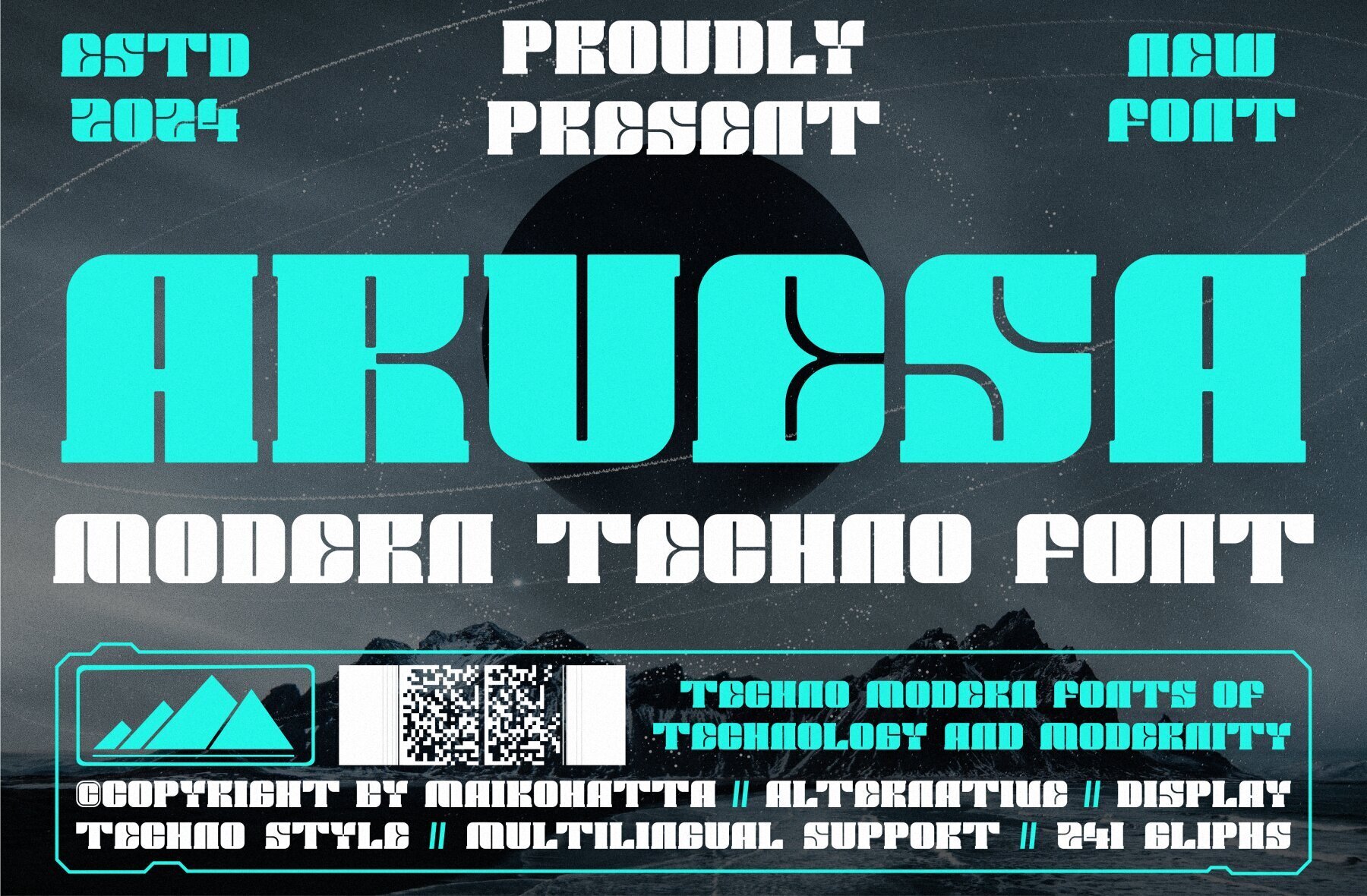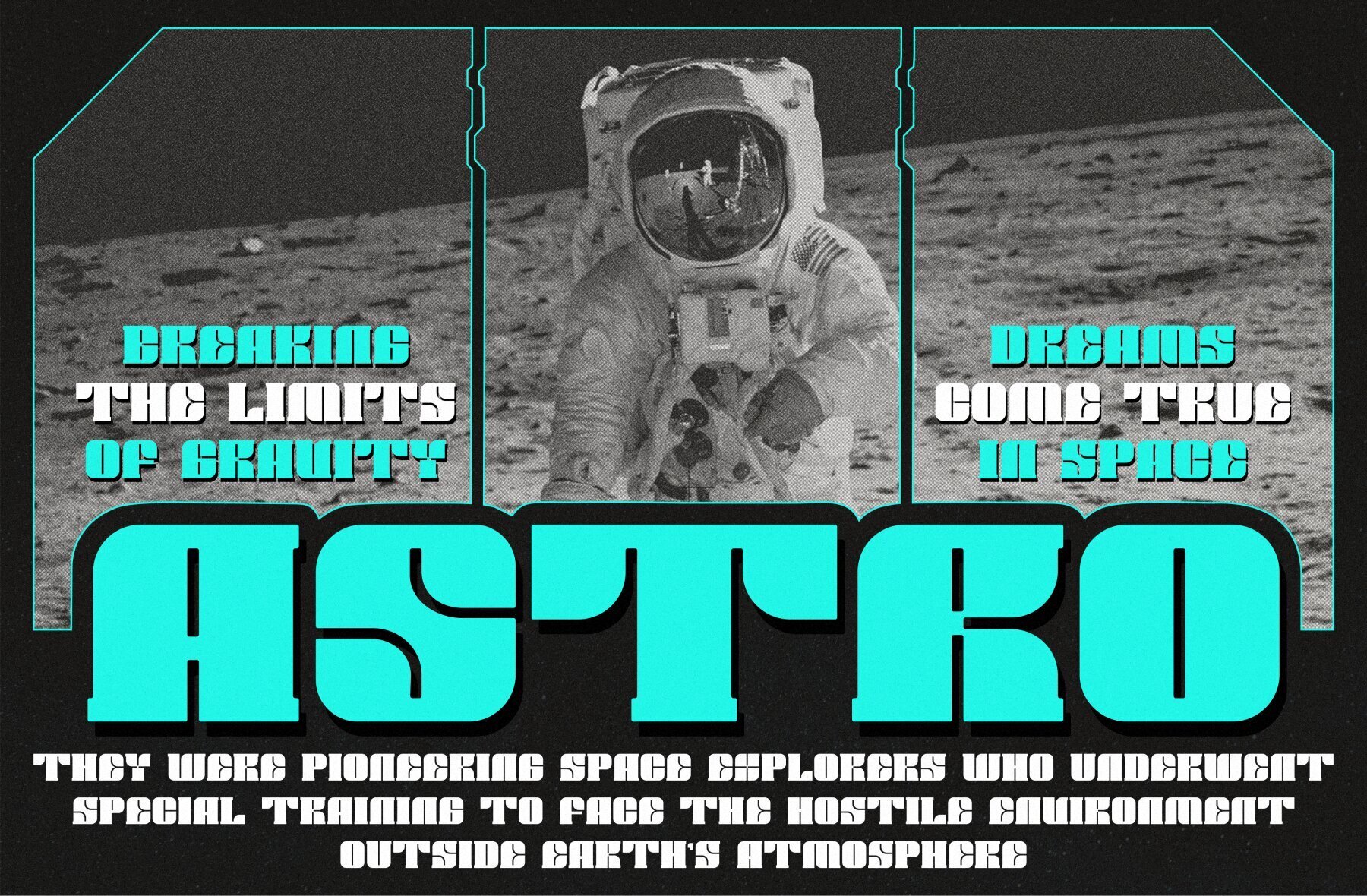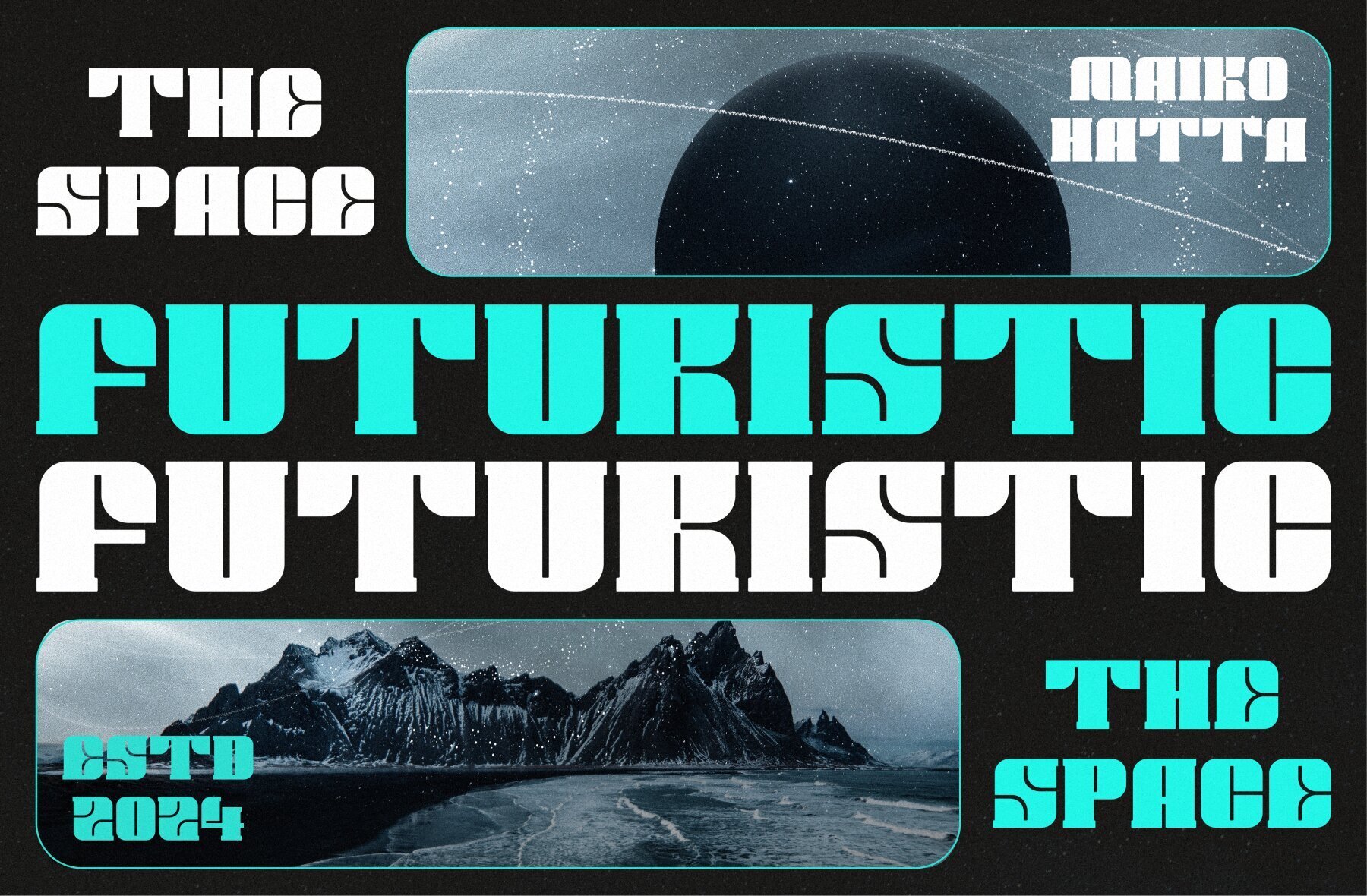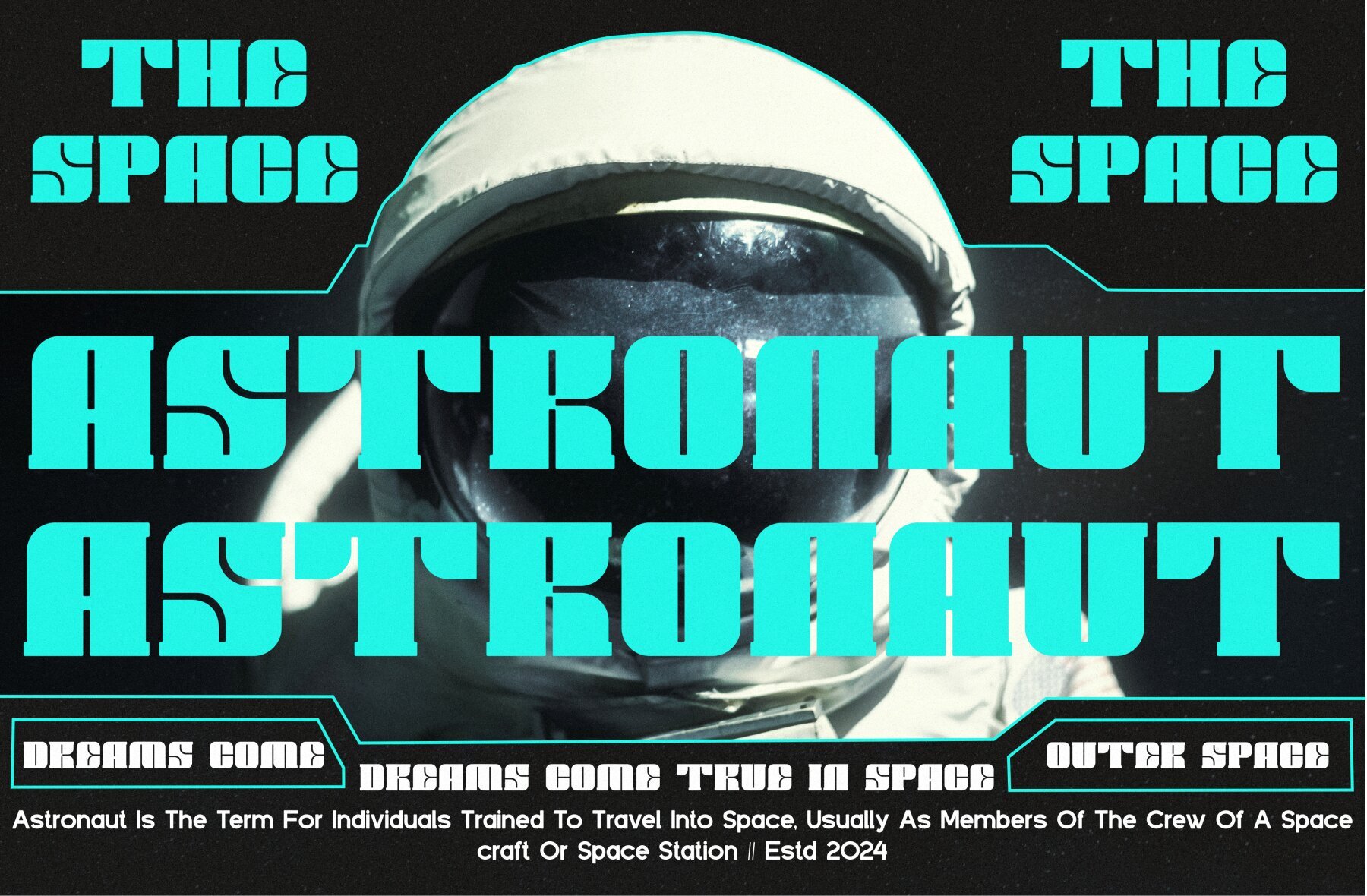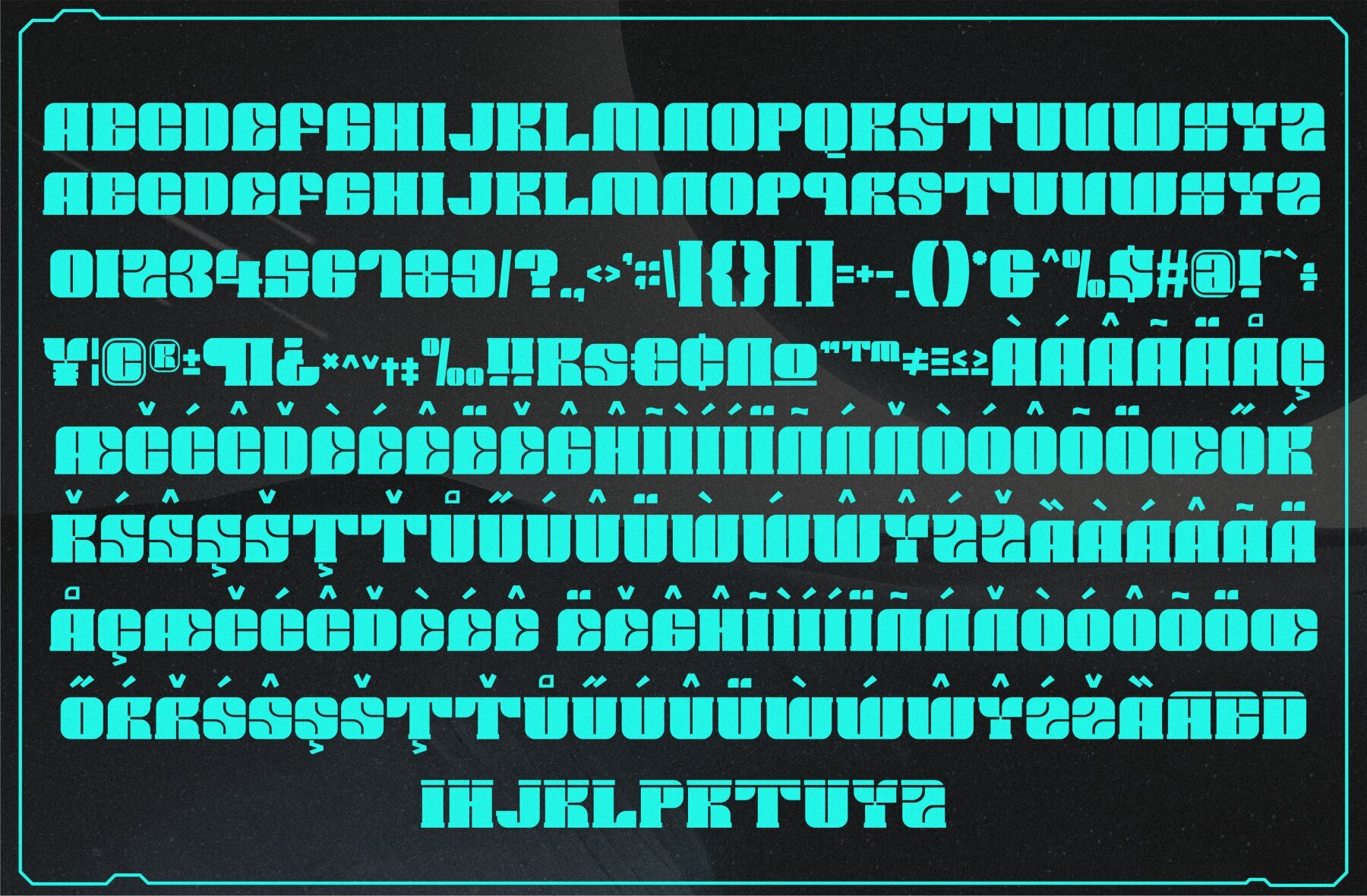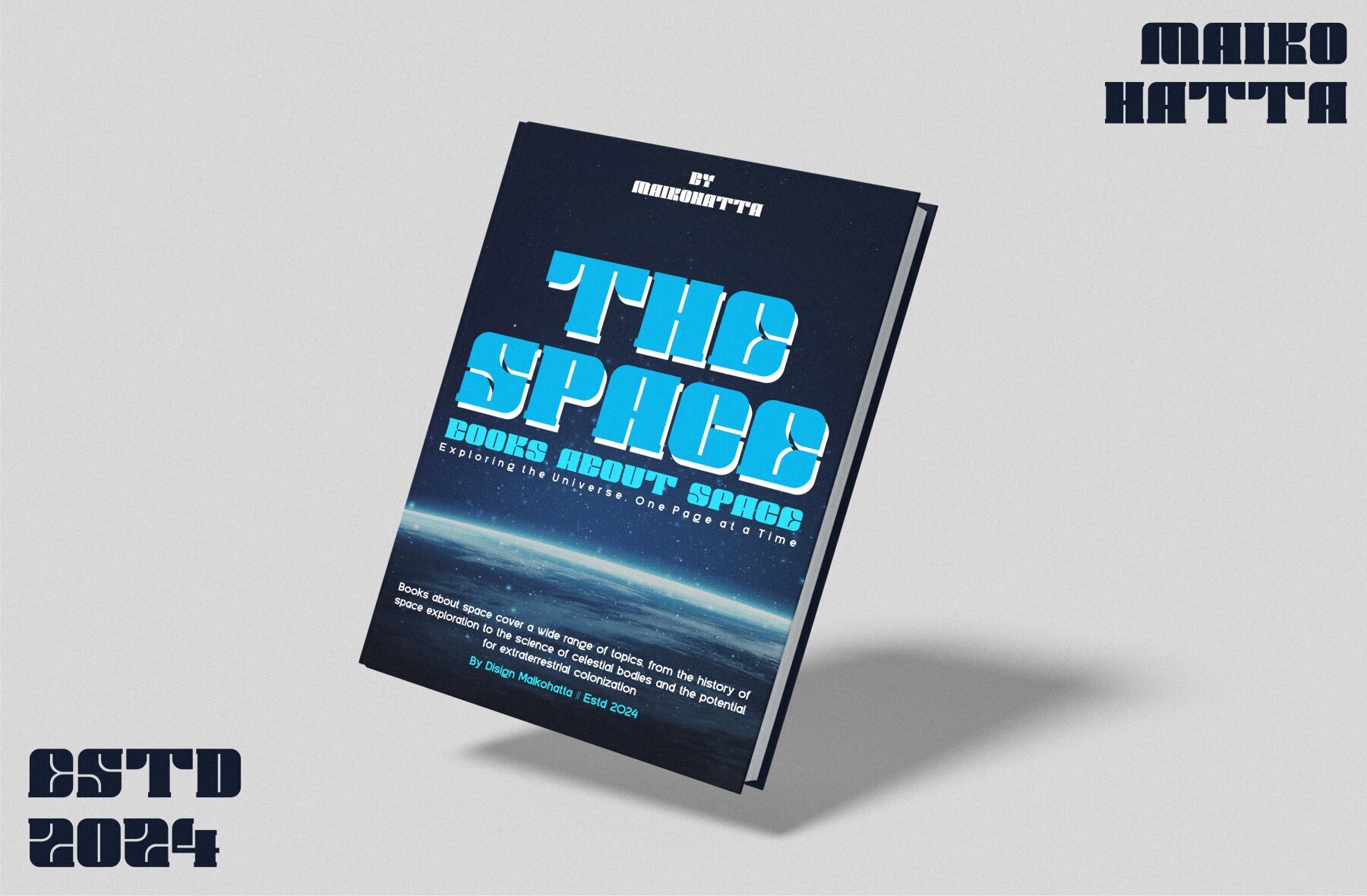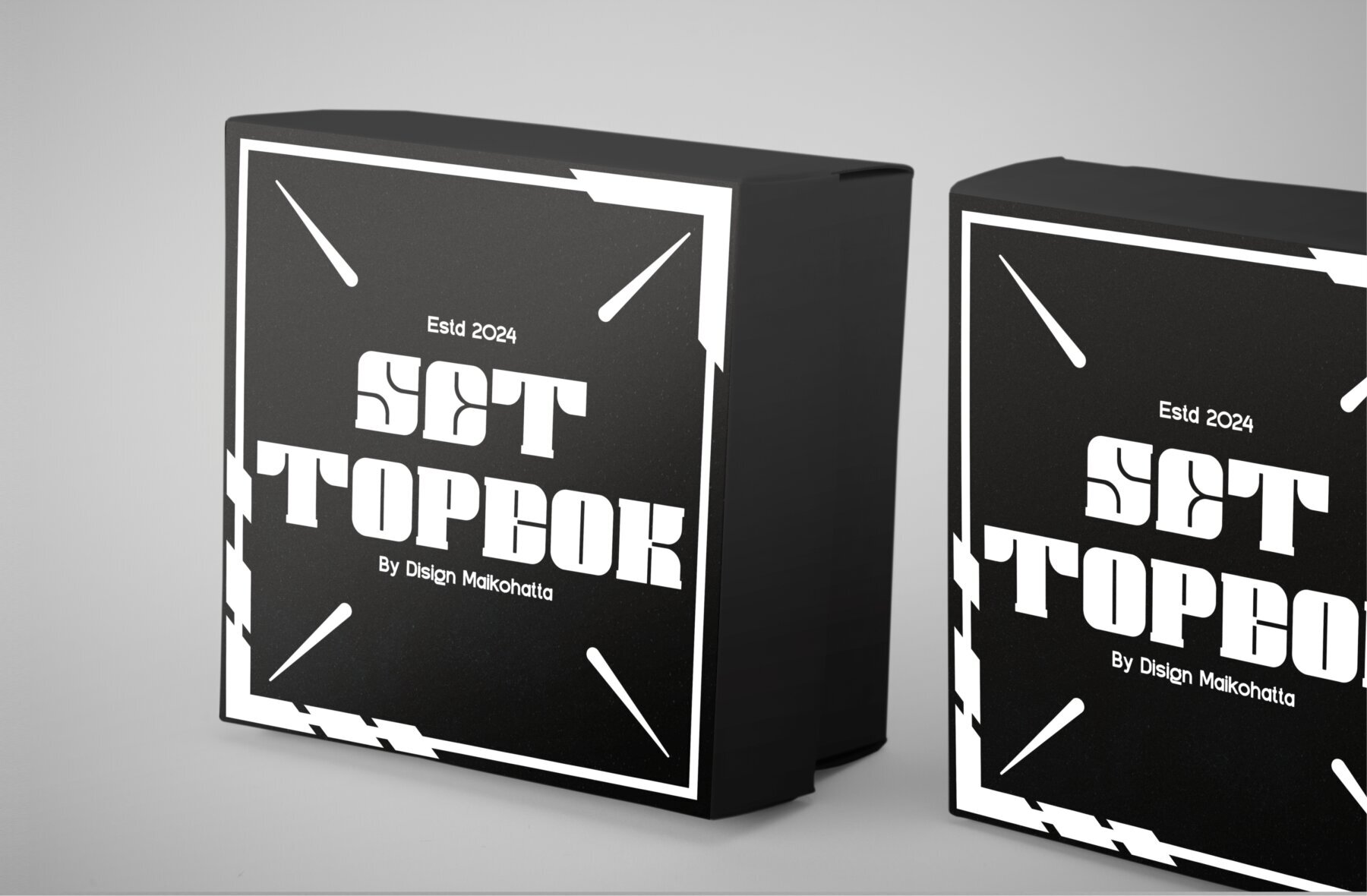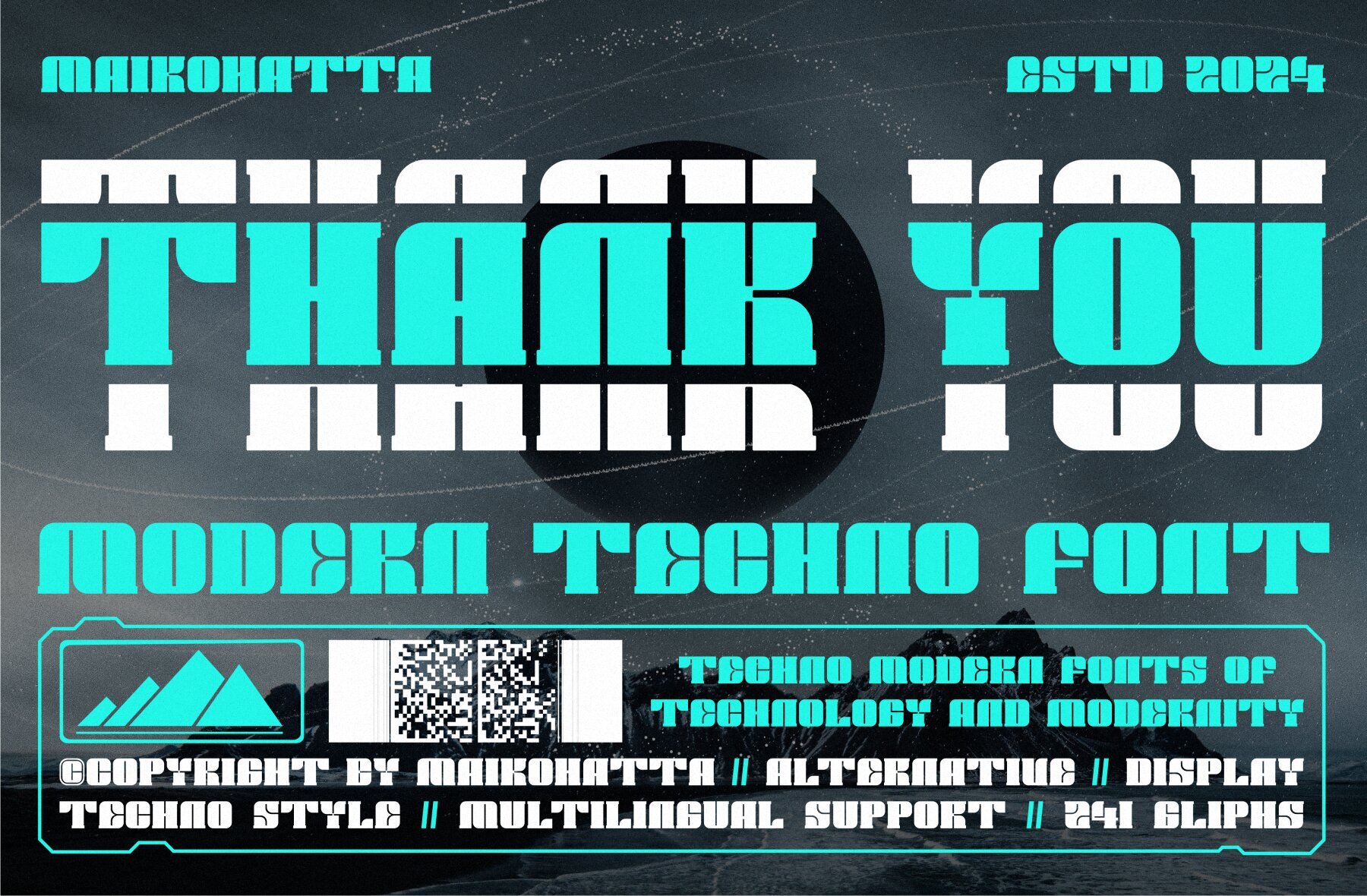
Aruesa Font
Aruesa Regular
Aruesa is a modern techno-style font, specially designed to make a bold statement with its authentic display. Ideal for diverse branding projects, this font is perfect for logos, template designs, esports, and more, standing out effectively in various contexts.Aruesa: A Bold Modern Techno Font